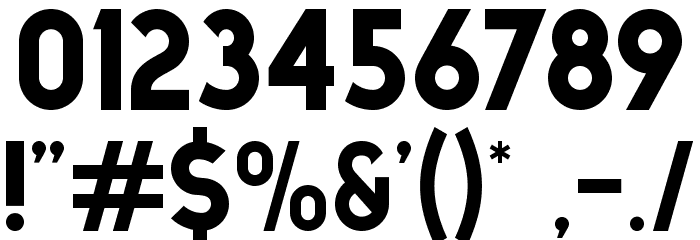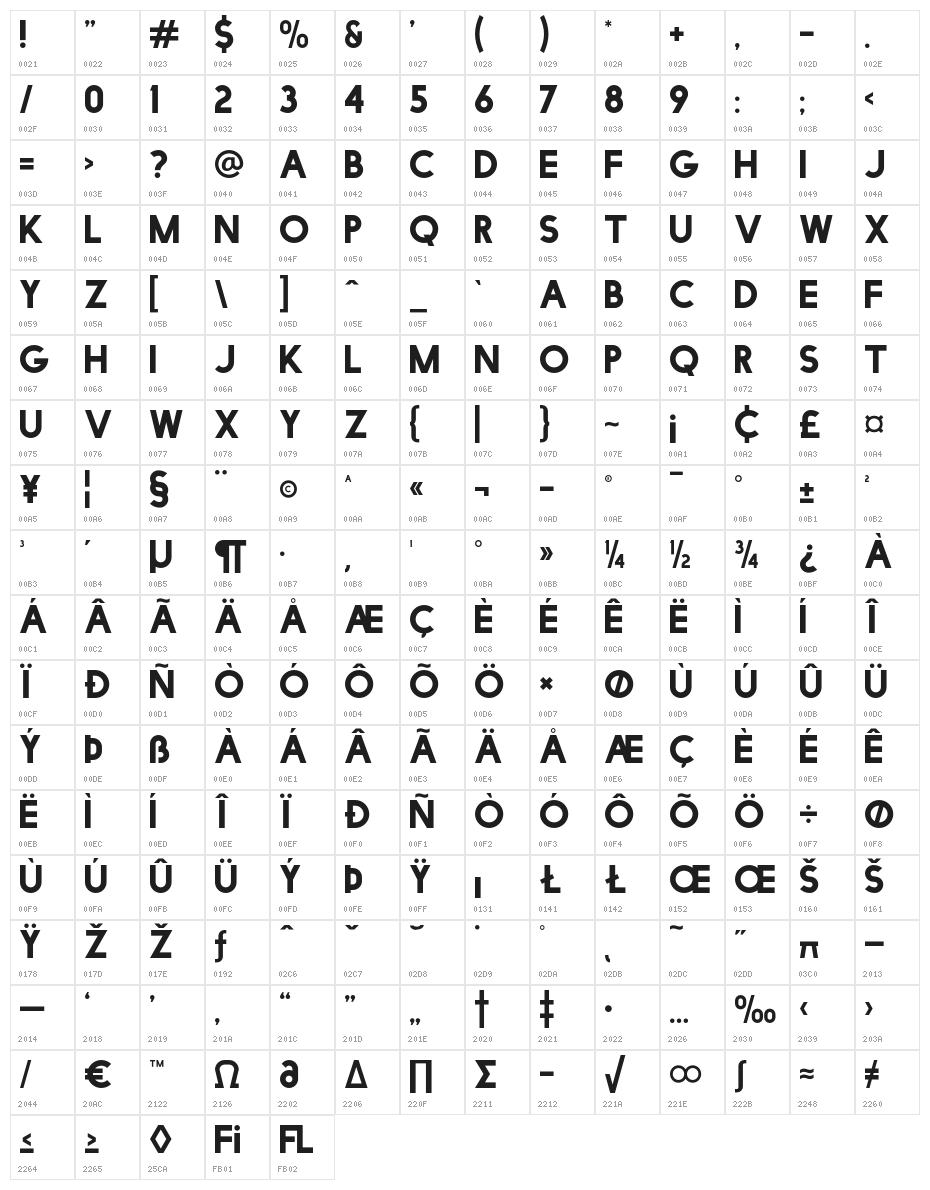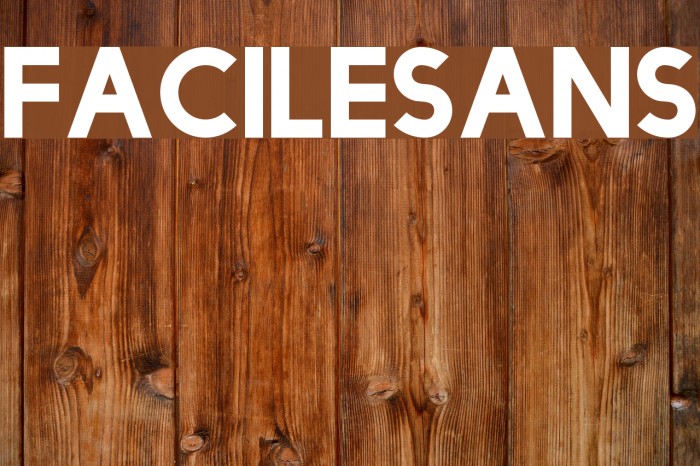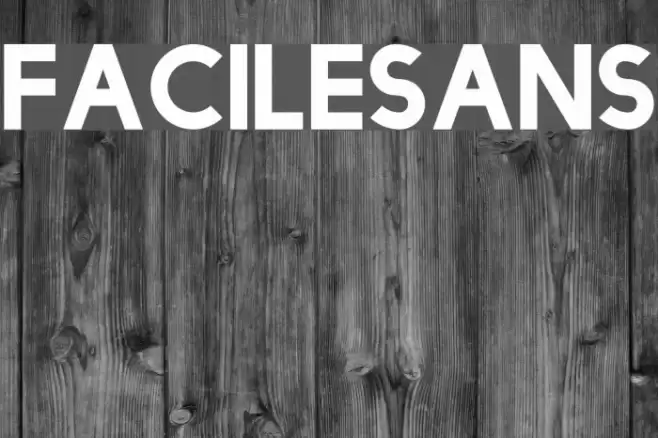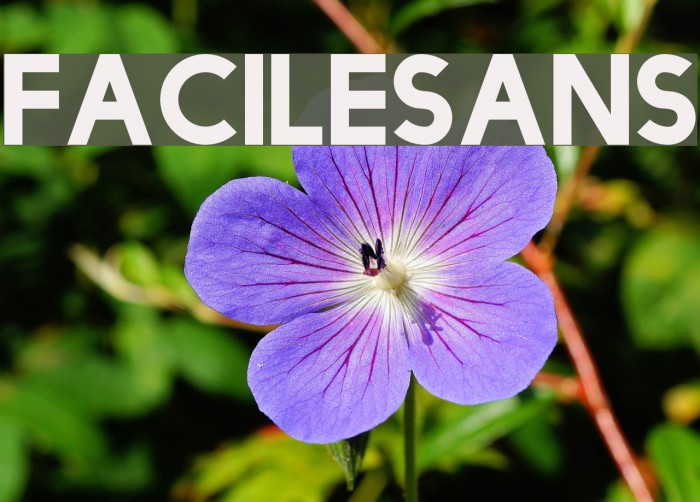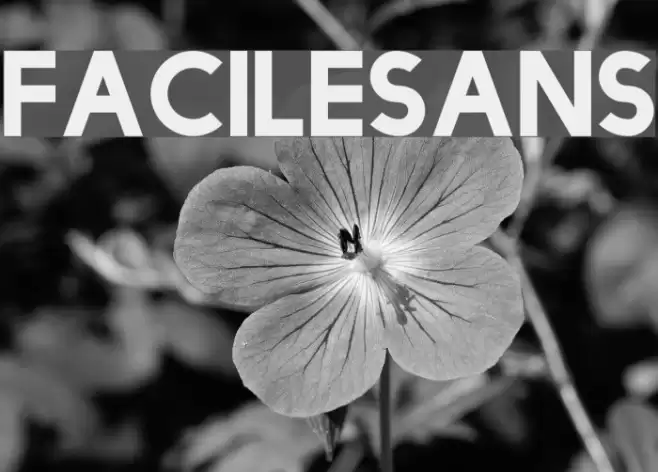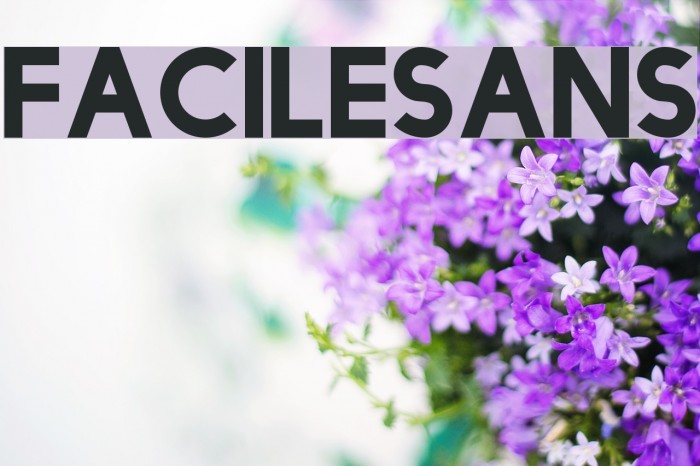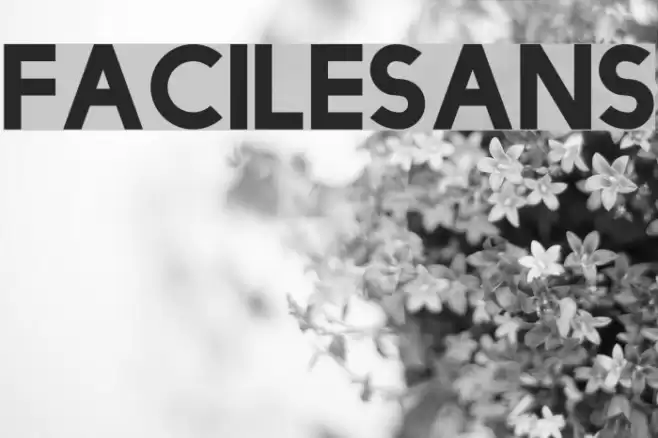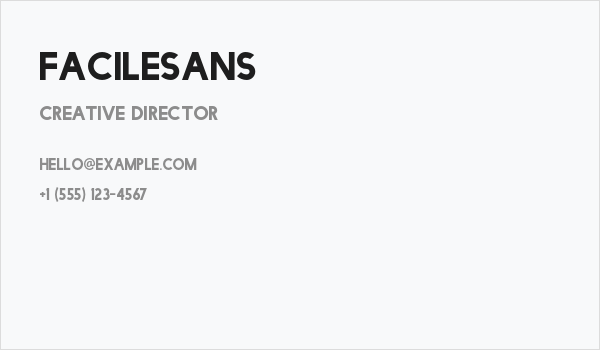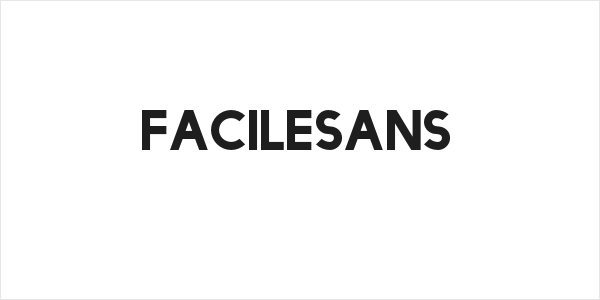
FacileSans Font
FacileSans Description
This font exhibits a bold and modern sans-serif style, characterized by its clean lines and geometric shapes. The uppercase letters are uniform in height, creating a strong and cohesive appearance. The lowercase letters maintain a similar width, contributing to the font's balanced and harmonious look. The numerals are clear and easily distinguishable, making them suitable for various applications. The special characters are well-integrated, ensuring consistency across all symbols. Overall, this font is versatile and can be used in a variety of design contexts.